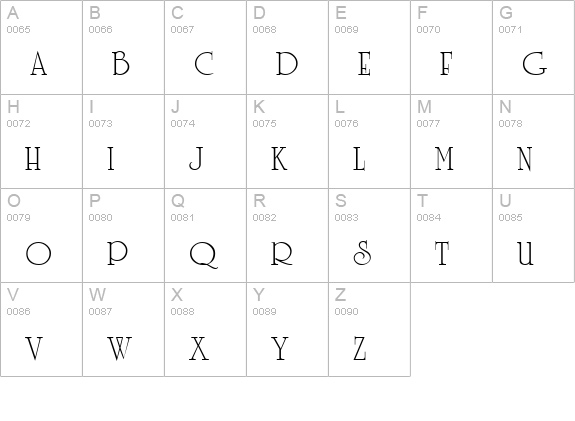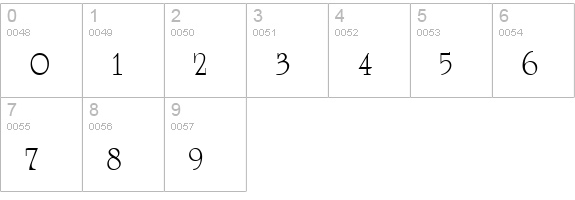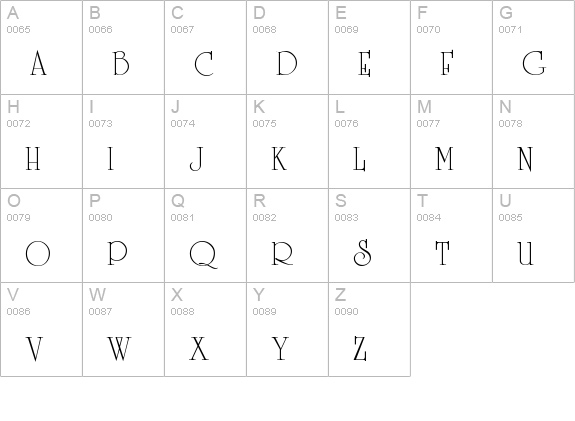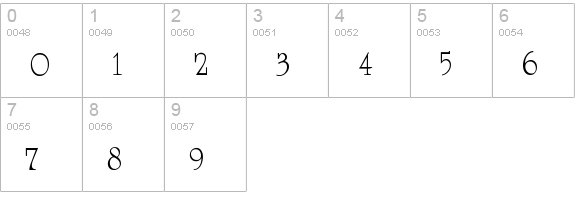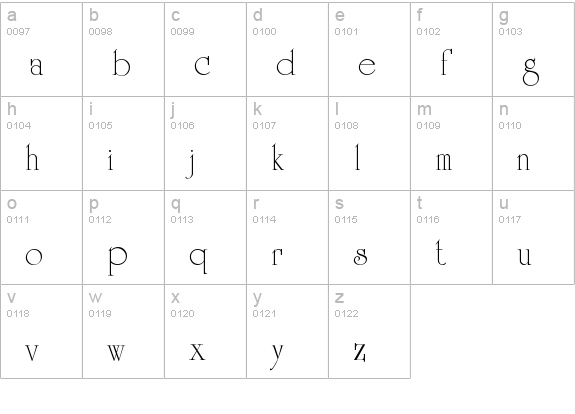
UniversityVariation Regular is the standard, neutral variant in the UniversityVariation typeface family \xE2\x80\x94 well suited to general body text, paragraphs, and standard typographic work.
UniversityVariation Regular font is a versatile and modern typeface that is perfect for all your design needs. With its clean lines and balanced proportions, this font is suitable for both headings and body text. It exudes professionalism and elegance, making it a great choice for websites, print materials, and branding projects. One of the best features of UniversityVariation Regular font is that it is freely available to download at FontsMarket.com. This means that you can access this amazing font without any cost, making it an excellent option for budget-conscious designers and students alike. Whether you are working on a personal project or a professional assignment, this font will give your designs a polished and sophisticated look. The UniversityVariation Regular font has a wide range of characters and glyphs, including uppercase and lowercase letters, numerals, punctuation marks, and special symbols. This ensures that you have all the tools you need to create visually appealing and engaging designs. The font's legibility and readability make it suitable for both print and digital media, ensuring that your message is conveyed clearly and effectively. With its timeless design, the UniversityVariation Regular font can be used in a variety of contexts. Whether you are designing a logo, creating marketing materials, or crafting a website, this font will add a touch of professionalism and style to your project. Its versatility also means that it can be paired with other fonts to create unique and eye-catching combinations. In conclusion, the UniversityVariation Regular font is a must-have for designers and creatives. Its clean lines, balanced proportions, and timeless design make it suitable for a wide range of projects. And the best part? It is freely available to download at FontsMarket.com, ensuring that you can access this amazing font without any cost. So why wait? Download the UniversityVariation Regular font today and take your designs to the next level.